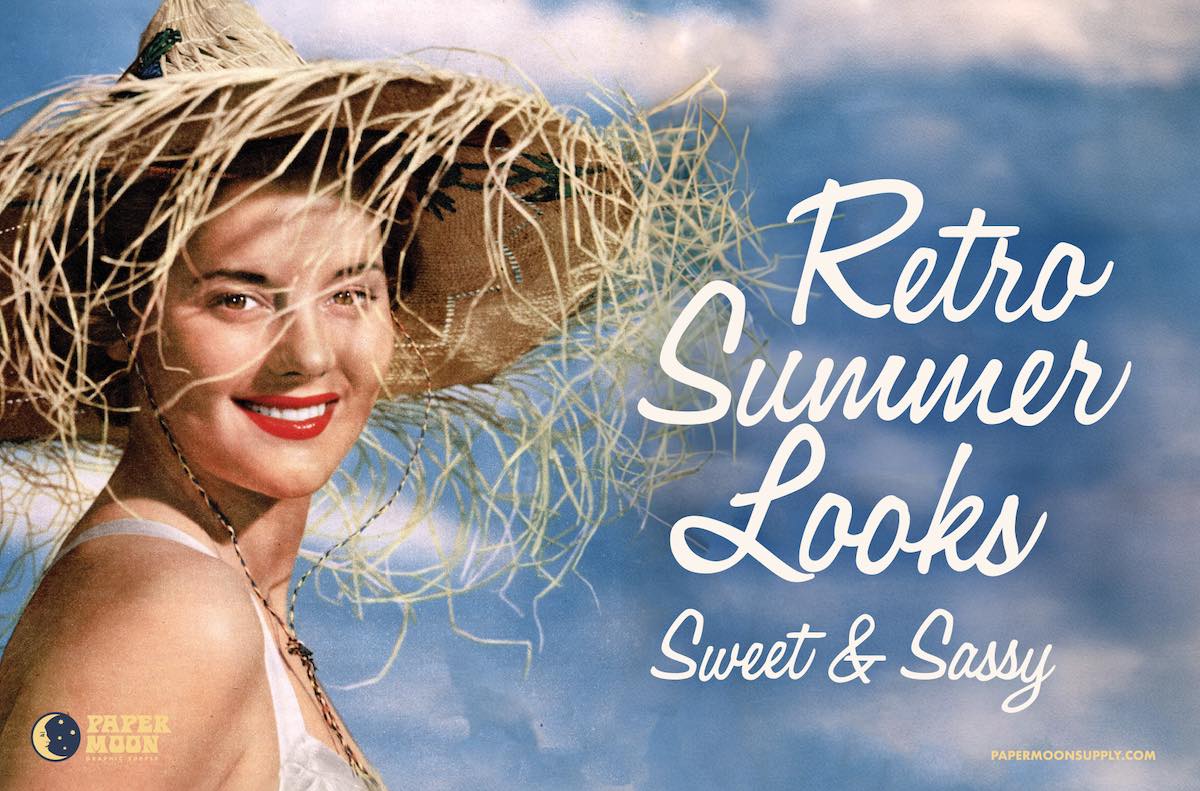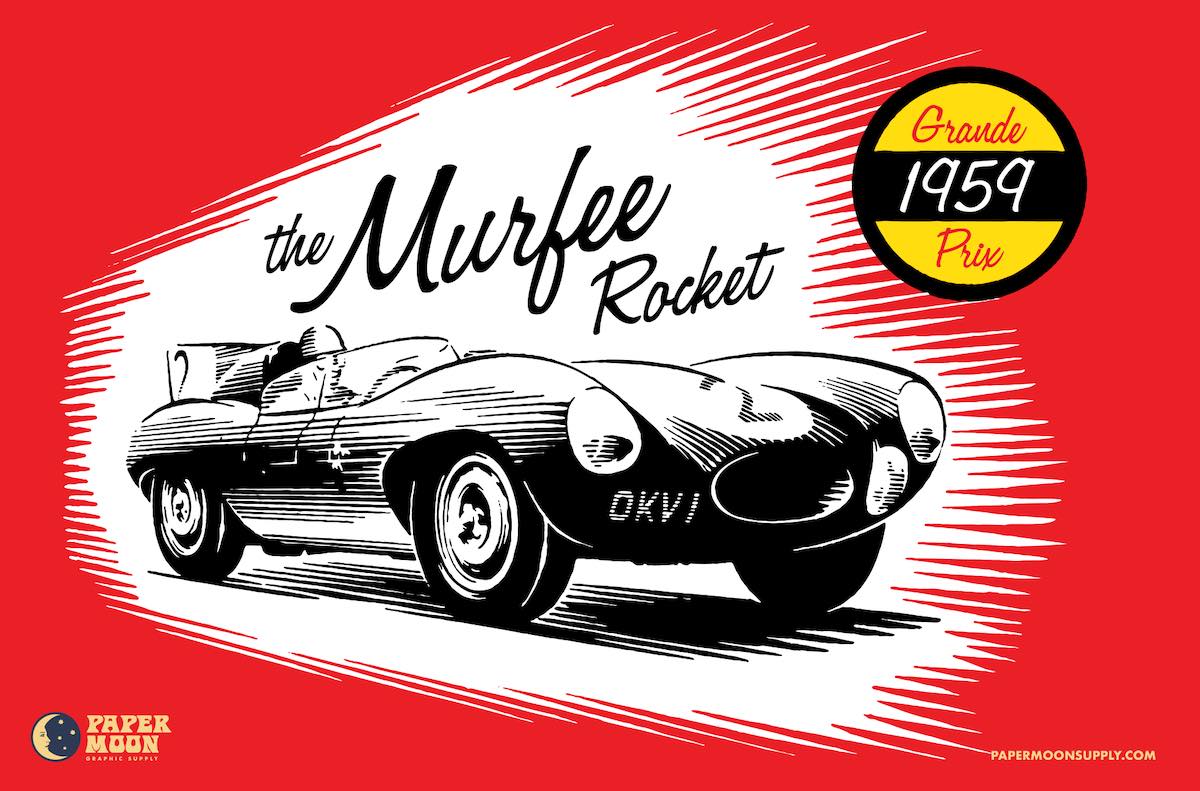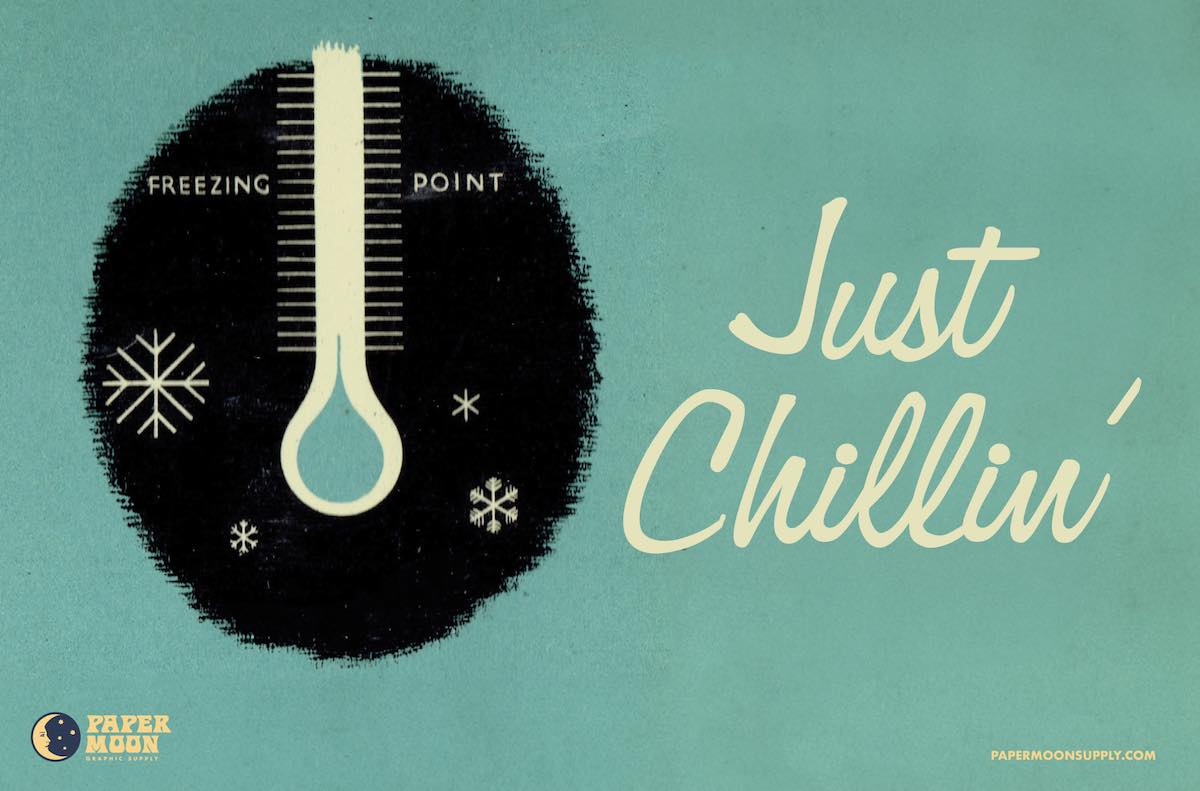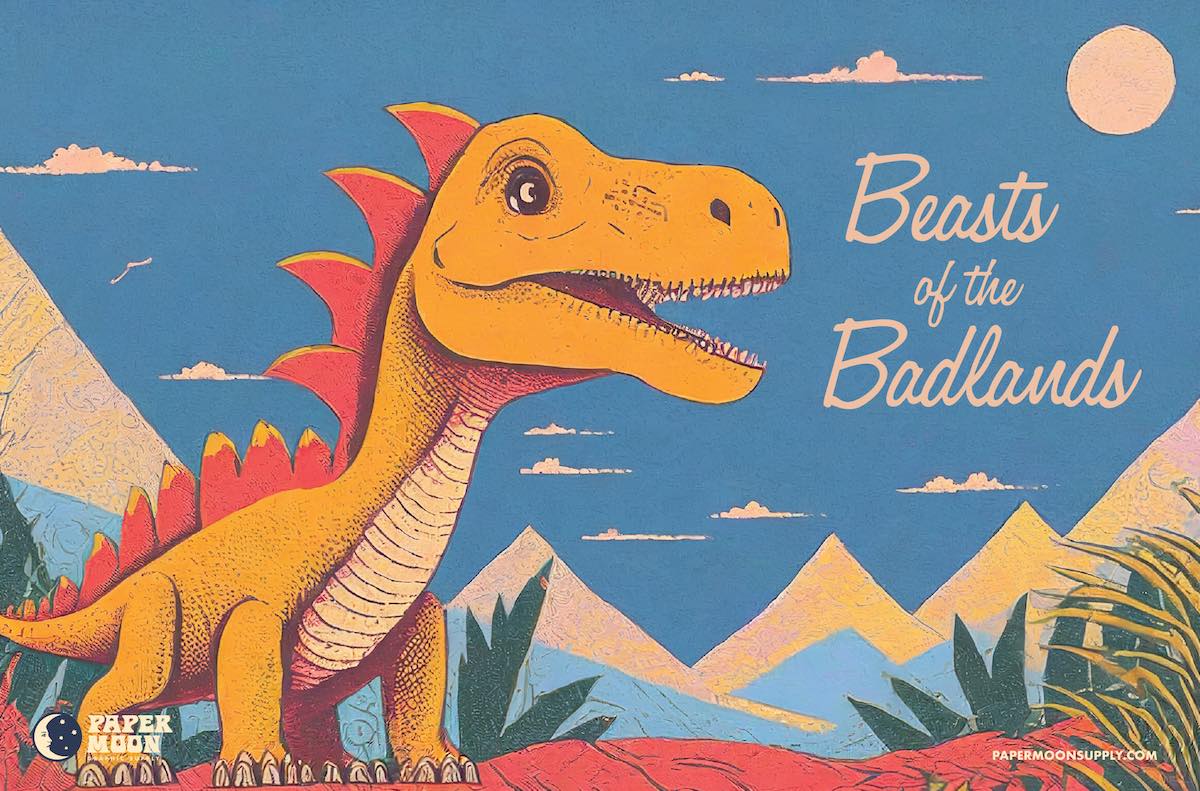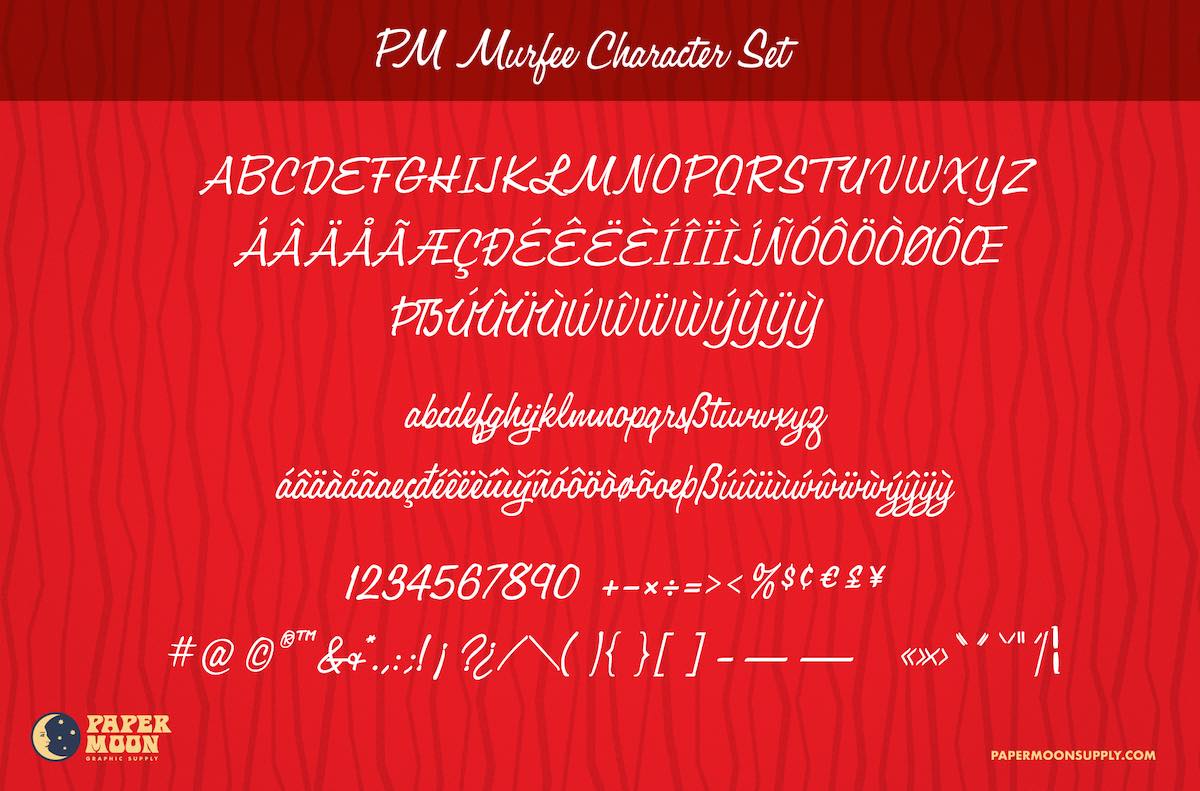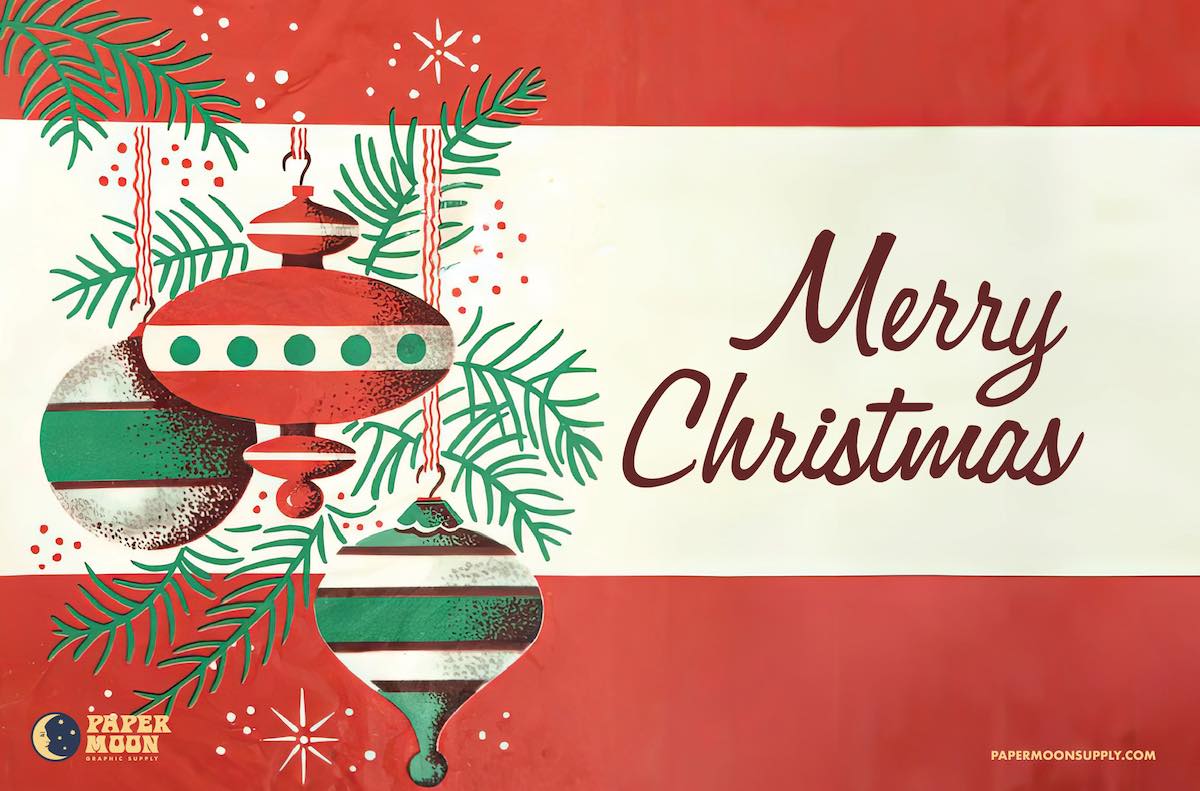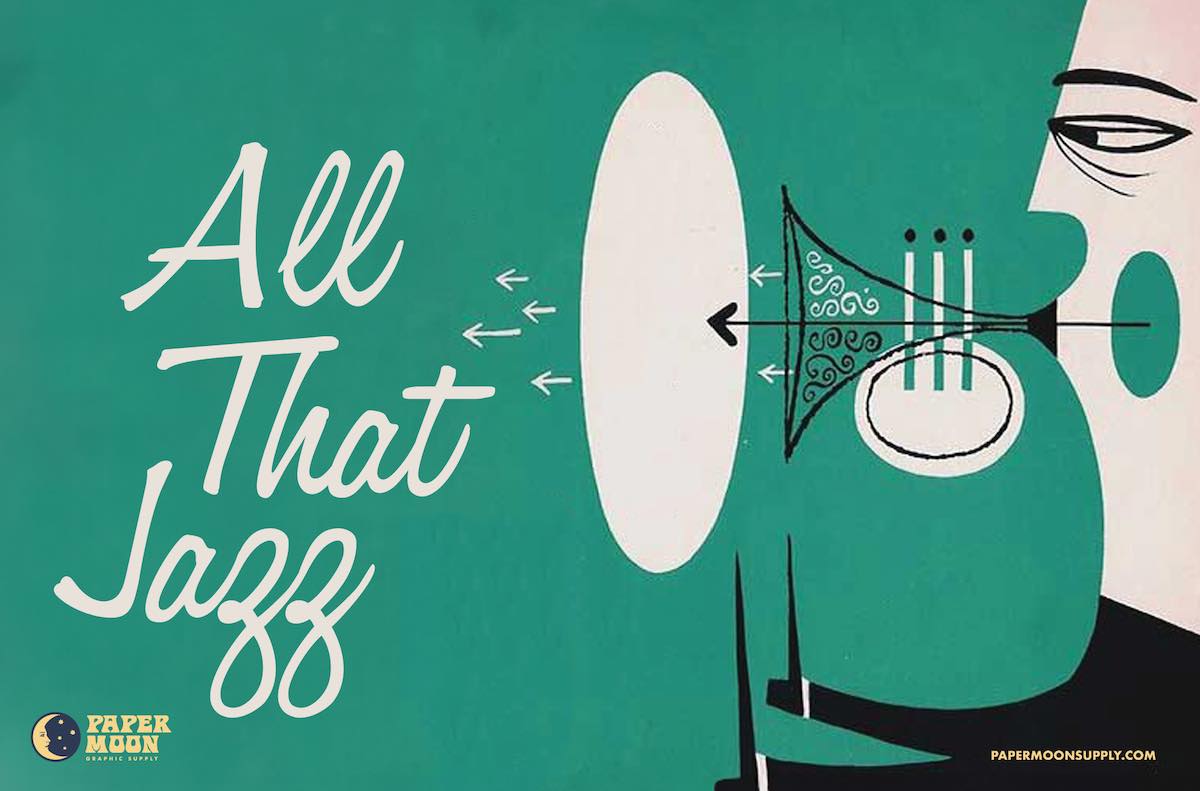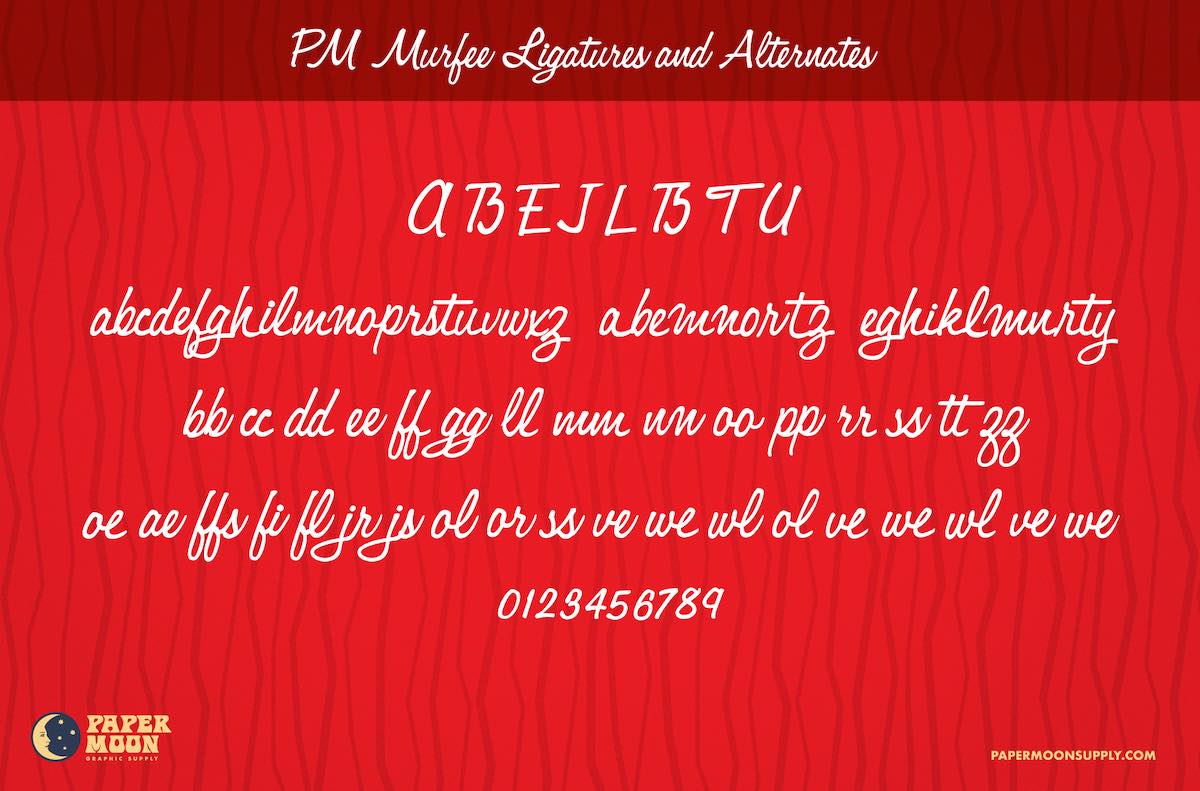
Murfee
Bring the Charm of the Atomic Era to Your Design Projects
Introduction:
Step back into the golden age of design with Murfee, the ultimate mid-century-inspired script font. Perfectly balanced between boldness and elegance, Murfee combines retro authenticity with modern versatility, making it a must-have for vintage-loving creatives. Whether you're crafting playful headlines or dreamy logotypes, Murfee ensures your work stands out with sophistication and flair.
• Two Versatile Weights: Comes in Medium and Bold styles, perfect for adding depth and contrast to your designs.
• Extensive Ligatures & Alternates: Create seamless, professional-looking typography with tons of ligatures and contextual alternates for effortless customization.
• Comprehensive Character Set: Includes multilingual support, numerals, and punctuation for global creative freedom.
• Retro-Inspired Elegance: Tailored for projects seeking an authentic 1950s and 60s feel, from greeting cards to posters, logos, and branding.
Murfee isn’t just a font—it’s a ticket to the glamorous world of mid-century design. From jazz album covers to classic holiday cards, Murfee brings timeless style to every project.
• Multilingual Support: Covers an extensive range of languages with accent marks and special characters.